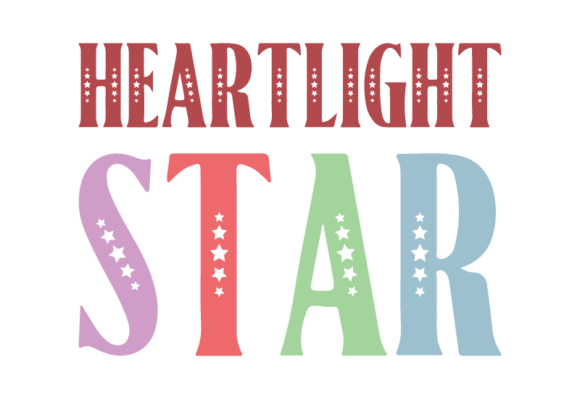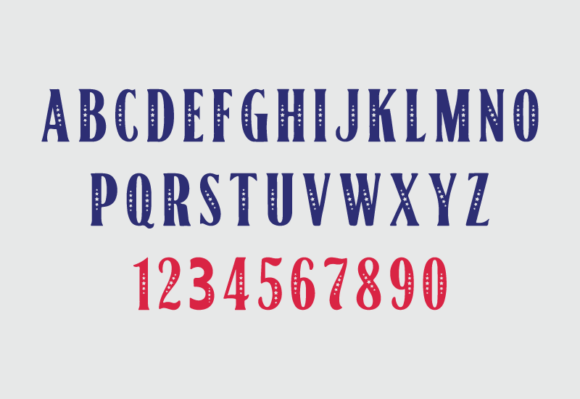
The Magic of Typography: Discovering Heartlightstar Regular Font
Have you ever stared at a blank page, trying to come up with the perfect design concept for a children’s book or a festive holiday card? The creative process can be daunting, but what if you had the perfect tool to spark your imagination? That’s where the Heartlightstar Regular Font comes in – a charming and whimsical decorative font that combines bold letterforms with sparkling star accents, making it perfect for eye-catching designs.
Whether you’re a seasoned designer or a hobbyist, the Heartlightstar Regular Font is a valuable addition to your toolkit. Its unique star-themed style adds a touch of magic and creativity to any design, making it the go-to choice for designers looking to create fun, dreamy, and standout visuals. With its ease of use and compatibility with most design software, you can unlock your full creative potential and produce designs that will leave a lasting impression.
Heartlightstar Regular Font Key Features
- Font Style: Regular
- Font Size: 1,000 glyphs, including Latin, Cyrillic, and Greek alphabets
- Resolution: Supports high-resolution displays up to 4K (3840 x 2160 pixels)
- Unique Characteristics: Heartlightstar Regular features a unique blend of modern and vintage elements, with subtle texture and a soft, elegant feel.
- Font Weight: Regular (400)
Designer Review: Heartlightstar Regular Font
Overall, I think Heartlightstar Regular Font has some great qualities, but it also has some limitations. Here’s what I think works well:
- ✨ Unique flair: This font has a distinct, hand-painted feel that can add a touch of personality to your designs.
- ✨ Legibility: Despite its playful look, the font is surprisingly readable, even at smaller sizes.
- ✨ Versatility: Heartlightstar Regular Font works well in a variety of contexts, from digital displays to print materials.
- ⚠️ Limited scalability: While the font is readable at smaller sizes, it can become pixelated or distorted when scaled up.
- ⚠️ Limited font size options: The font is optimized for body text, but it may not be suitable for headlines or other larger font sizes.
- ⚠️ May not be suitable for formal designs: The font’s playful, hand-painted feel may not be suitable for formal or professional designs.
Overall, I think Heartlightstar Regular Font is a great choice for designers who want to add some personality to their designs. However, it’s essential to be aware of its limitations and use it judiciously.
The Heartlightstar Regular font is ideal for:
- Body text in magazines and brochures.
- Headlines and titles in creative projects.
- Labels and captions in photo editing.
For optimal results, use the Heartlightstar Regular font with a clear and concise message, and adjust font size and style to match your design’s overall aesthetic.